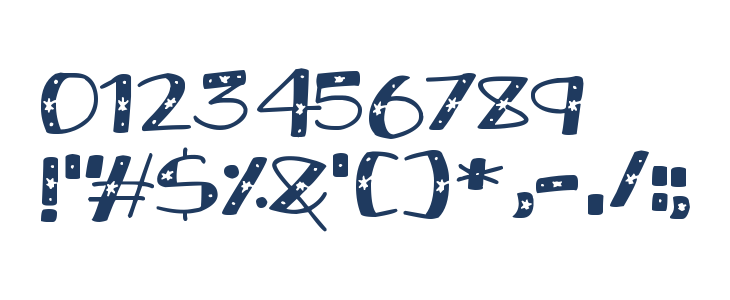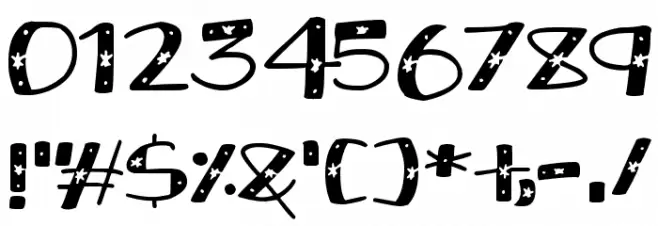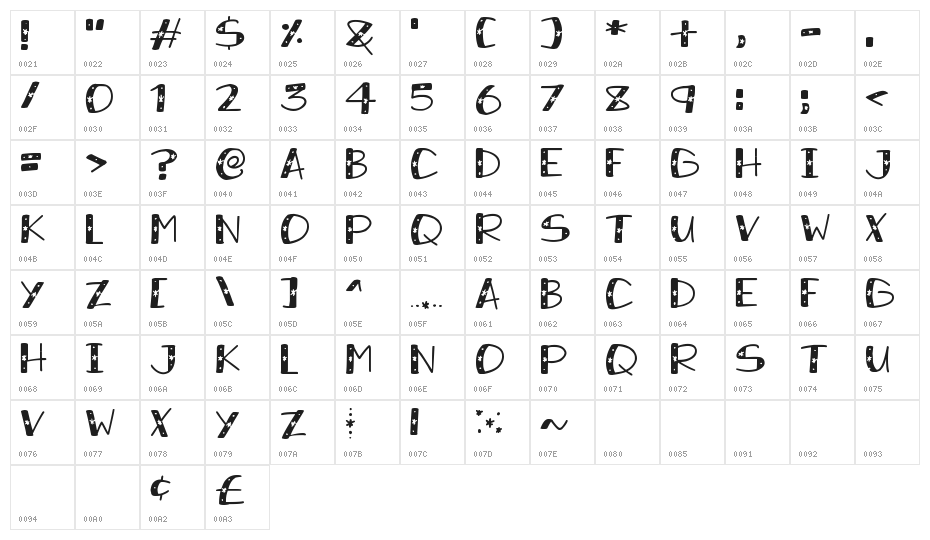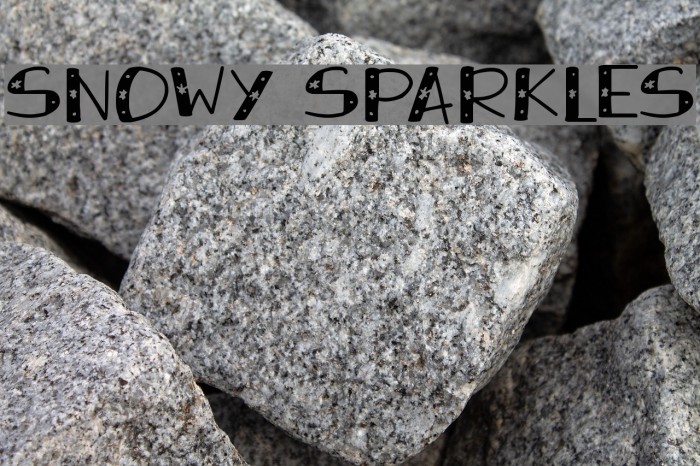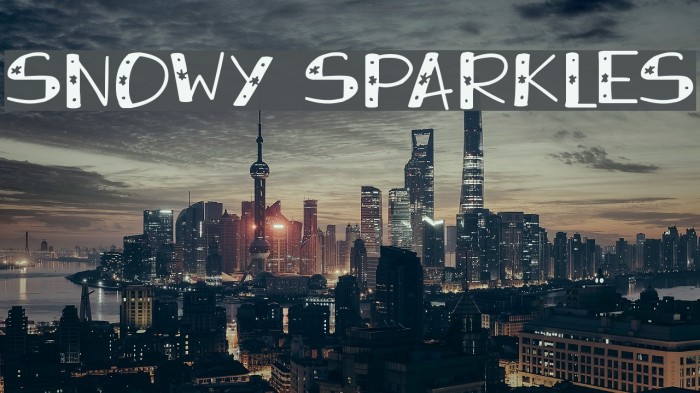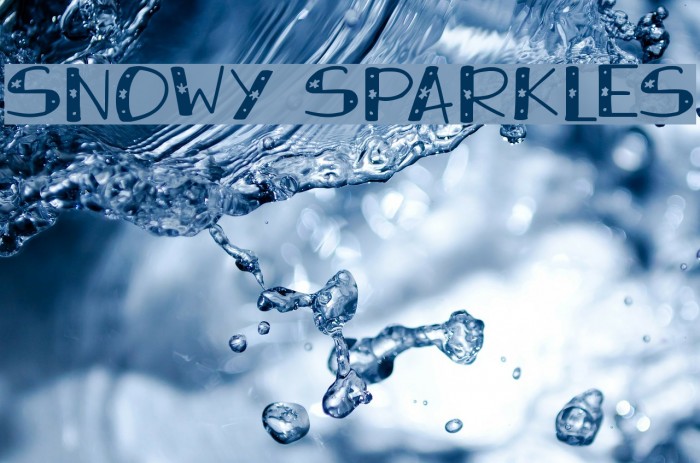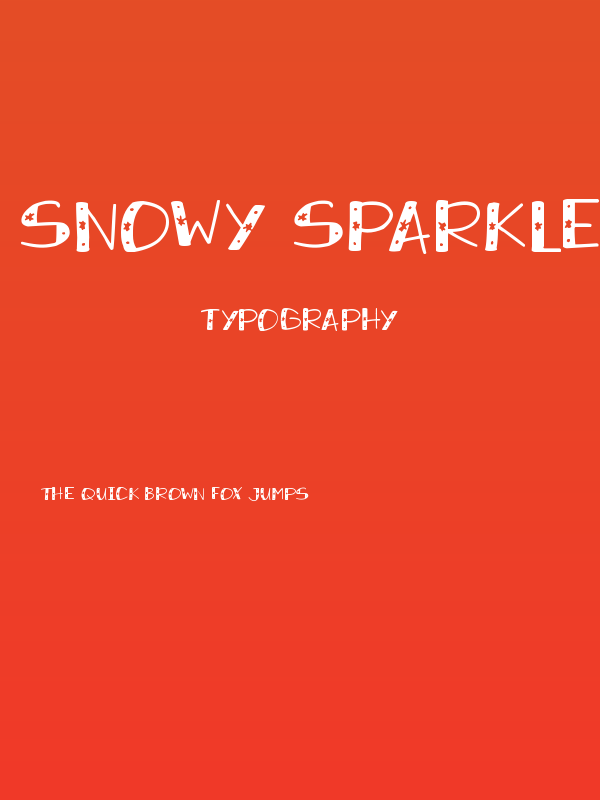
Snowy Sparkles Font
Snowy Sparkles Description
This playful and whimsical font features a unique design with star-like sparkles embedded within each character. The letters are bold and rounded, giving them a friendly and approachable appearance. The playful nature of the font is enhanced by the irregular placement of the sparkles, which adds a dynamic and lively feel. The characters are evenly spaced, ensuring readability while maintaining a fun aesthetic. This font is perfect for projects that require a touch of magic and creativity, such as children's books, festive invitations, or playful branding.
| Proposed Projects | Ideal for children's books, festive invitations, playful branding, and creative projects. |